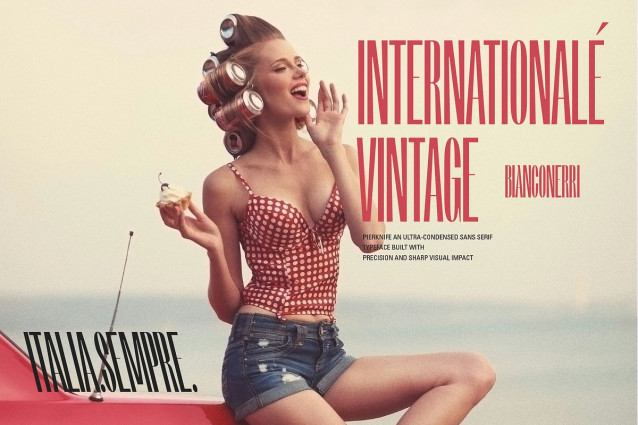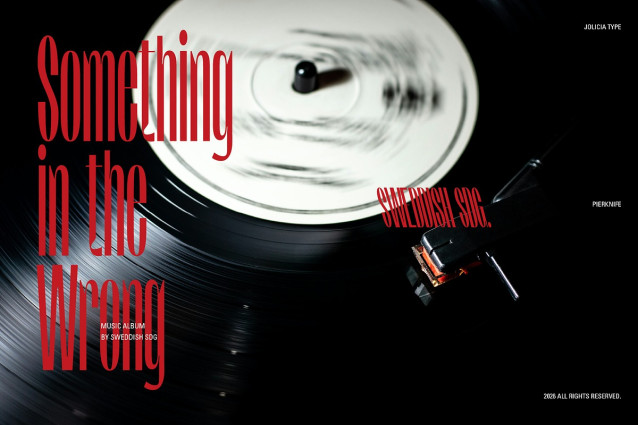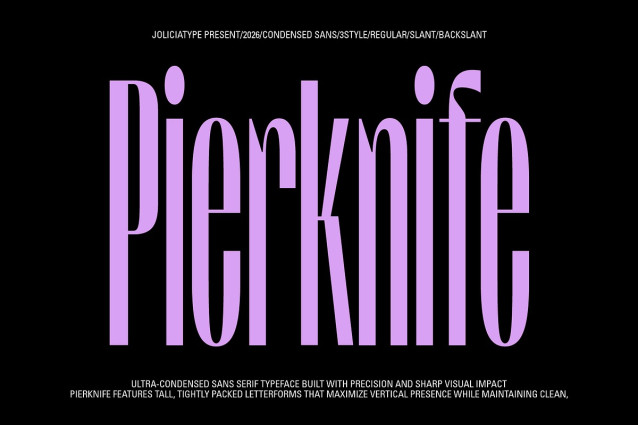
Pierknife Font
Pierknife Font is a thin ultra-condensed sans serif typeface that balances sharp modern precision with subtle vintage character. Designed with tall, narrow proportions and a clean structural rhythm, it delivers a sleek contemporary presence while remaining adaptable to retro-inspired compositions.
Its refined letterforms feature crisp edges and carefully engineered ink traps, enhancing legibility at small sizes while adding a distinctive technical detail. These ink traps not only improve functionality in print and digital environments, but also introduce a subtle industrial accent—allowing the typeface to feel progressive in modern layouts and authentically tactile in vintage settings.